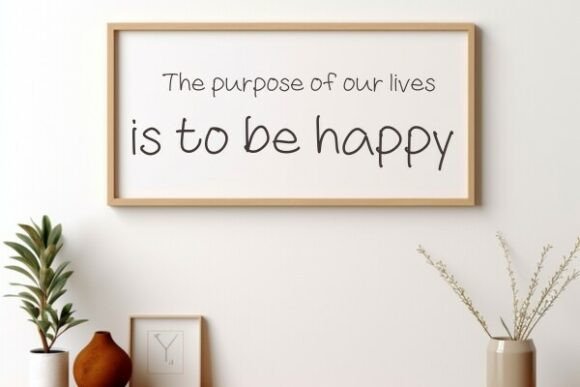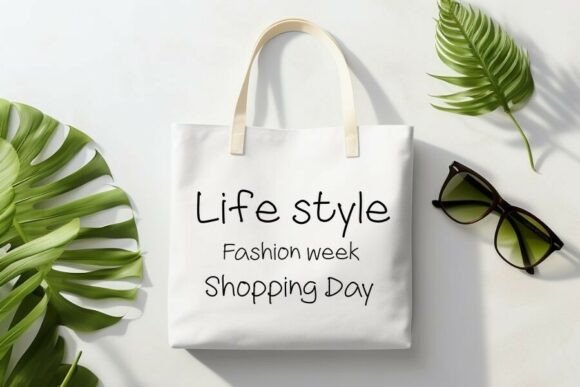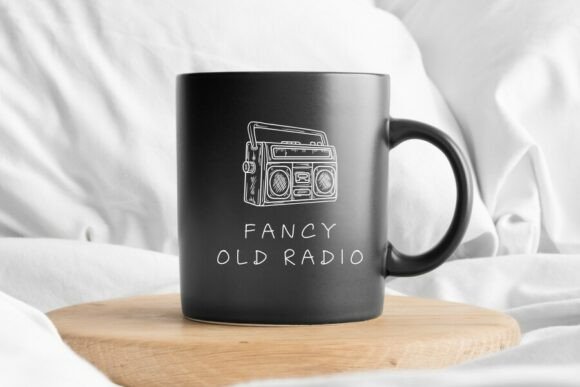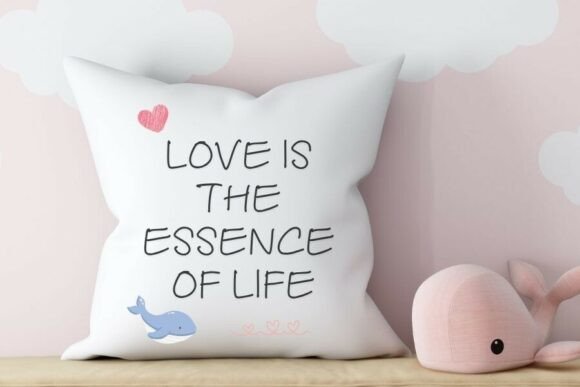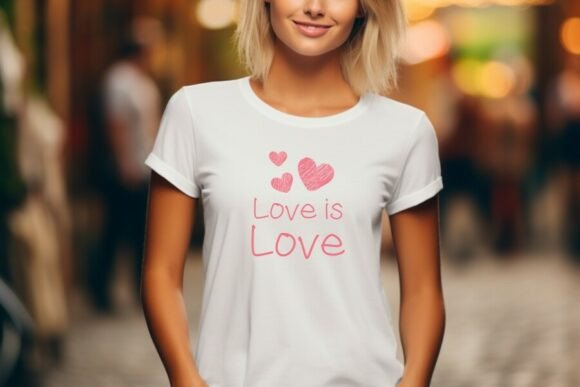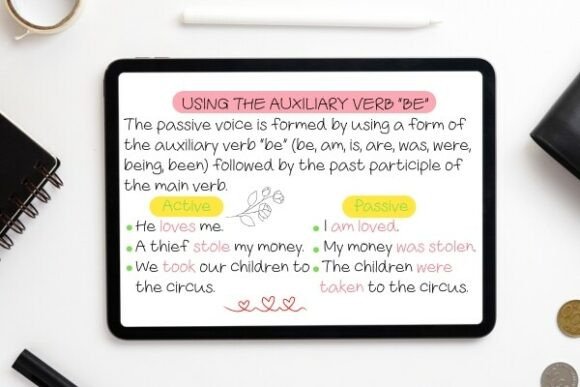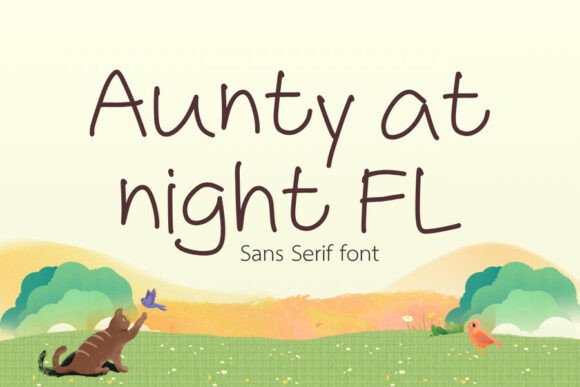
Aunty at Night FL Font: A Charming and Lightweight Typeface for Creative Projects
In the world of typography, finding the perfect font that captures the essence of casual, neat handwriting can be a daunting task. However, Aunty at Night FL font is here to make that search a little easier. This charming, lightweight font is designed to bring a touch of warmth and personality to any creative project. In this article, we’ll dive into the features and benefits of Aunty at Night FL font, and explore its potential uses in various design applications.
A Unique Sans Serif with a Humanistic Touch
Aunty at Night FL font is categorized as a sans serif, but it boasts a distinctive set of characteristics that set it apart from other fonts in this category. Its thin, monolinear strokes and soft, rounded terminals give it a warm and humanistic quality that’s hard to find in traditional sans serif fonts. The characters have an airy, open feel with a natural, subtle bounce along the baseline, making it exceptionally approachable and easy to read.
Perfect for Creative Projects that Require a Personal Touch
Aunty at Night FL font is a versatile typeface that can be used in a variety of creative projects. Its gentle, personal touch makes it an ideal choice for:
- Children’s book interiors: Aunty at Night FL font is perfect for kids’ books, as it creates a warm and inviting atmosphere that’s sure to engage young readers.
- Whimsical product storytelling: Add a touch of personality to your product labels or packaging with Aunty at Night FL font, which can help to create a playful and approachable brand image.
- Lighthearted greeting cards: Whether you’re designing birthday cards, thank-you cards, or holiday cards, Aunty at Night FL font is a great choice for creating a friendly and informal tone.
- Creative projects: From craft tutorials to DIY blogs, Aunty at Night FL font is a great choice for any creative project that requires a personal and approachable tone.
Key Features of Aunty at Night FL Font
So, what makes Aunty at Night FL font so special? Here are some of its key features:
- Lightweight and easy to read: Aunty at Night FL font is designed to be easy on the eyes, making it perfect for long blocks of text.
- Monolinear strokes: The font’s thin, monolinear strokes create a clean and elegant look that’s perfect for a variety of design applications.
- Soft, rounded terminals: The soft, rounded terminals add a touch of warmth and personality to the font, making it feel more humanistic.
- Airy, open feel: The characters have a natural, airy feel that creates a sense of openness and makes the text easy to read.
Tips for Using Aunty at Night FL Font
To get the most out of Aunty at Night FL font, here are a few tips to keep in mind:
- Use it for body text: Aunty at Night FL font is perfect for body text, as it’s easy to read and creates a warm and inviting atmosphere.
- Pair it with bold fonts: For headings and titles, consider pairing Aunty at Night FL font with a bold font to create contrast and visual interest.
- Experiment with colors: Aunty at Night FL font looks great in a variety of colors, so don’t be afraid to experiment and find the perfect hue for your design.
Aunty at Night FL font is a charming and lightweight typeface that’s perfect for creative projects that require a personal touch. Its unique blend of monolinear strokes, soft terminals, and airy feel make it exceptionally approachable and easy to read. Whether you’re designing children’s book interiors, whimsical product storytelling, or lighthearted greeting cards, Aunty at Night FL font is a great choice. So why not give it a try and see how it can add a touch of warmth and personality to your designs?